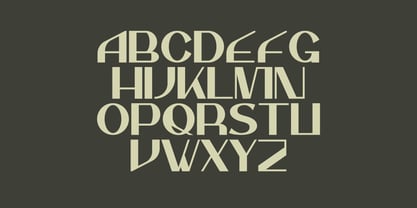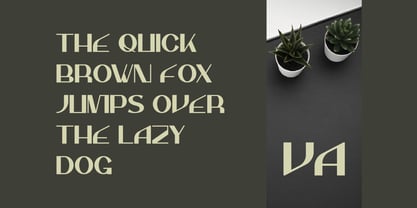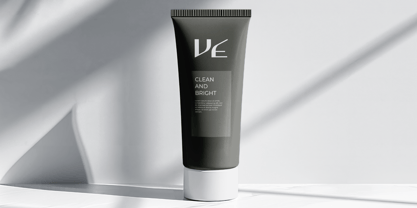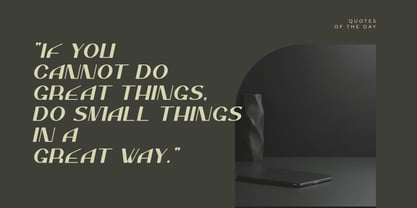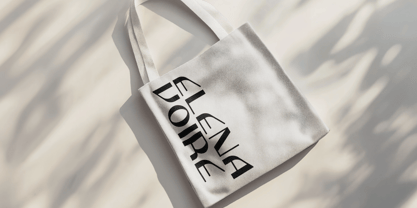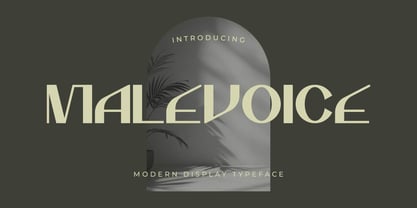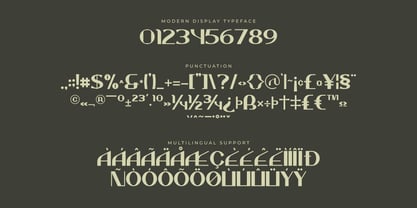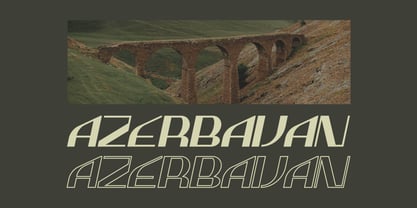
Malevoice
by Artiveko
The Malevoice Font Family was designed by Iwan Alwan and published by Artiveko. Malevoice contains 2 styles and family package options. More about this family
Malervoice is a modern geometric display font designed for fashion-forward typography and sophisticated visual communication. With its dramatic proportions, geometric structures, and distinctive experimental letterforms, Malervoice adds an artistic edge to contemporary design. The blend of clean geometry and unconventional character shapes creates a striking editorial and high-fashion aesthetic, making it particularly effective when typography serves as a visual statement rather than merely conveying information.
This font is perfect for a variety of applications, including fashion magazines, luxury campaigns, editorial covers, fashion logos, boutique identities, perfume packaging, beauty campaigns, posters, album artwork, photography projects, and premium social media graphics. The unique construction of its letterforms allows designers the freedom to craft compositions that feel experimental, artistic, and instantly recognizable.
When used at larger sizes, Malervoice stands out brilliantly for headlines, wordmarks, campaign titles, and statement typography. From avant-garde fashion editorials to contemporary luxury identities, Malervoice provides your design with a distinctive voice that is current, sophisticated, and intentionally unconventional. Malervoice — geometric typography with a fashion-forward attitude.
Designers: Iwan Alwan
Foundry: Artiveko